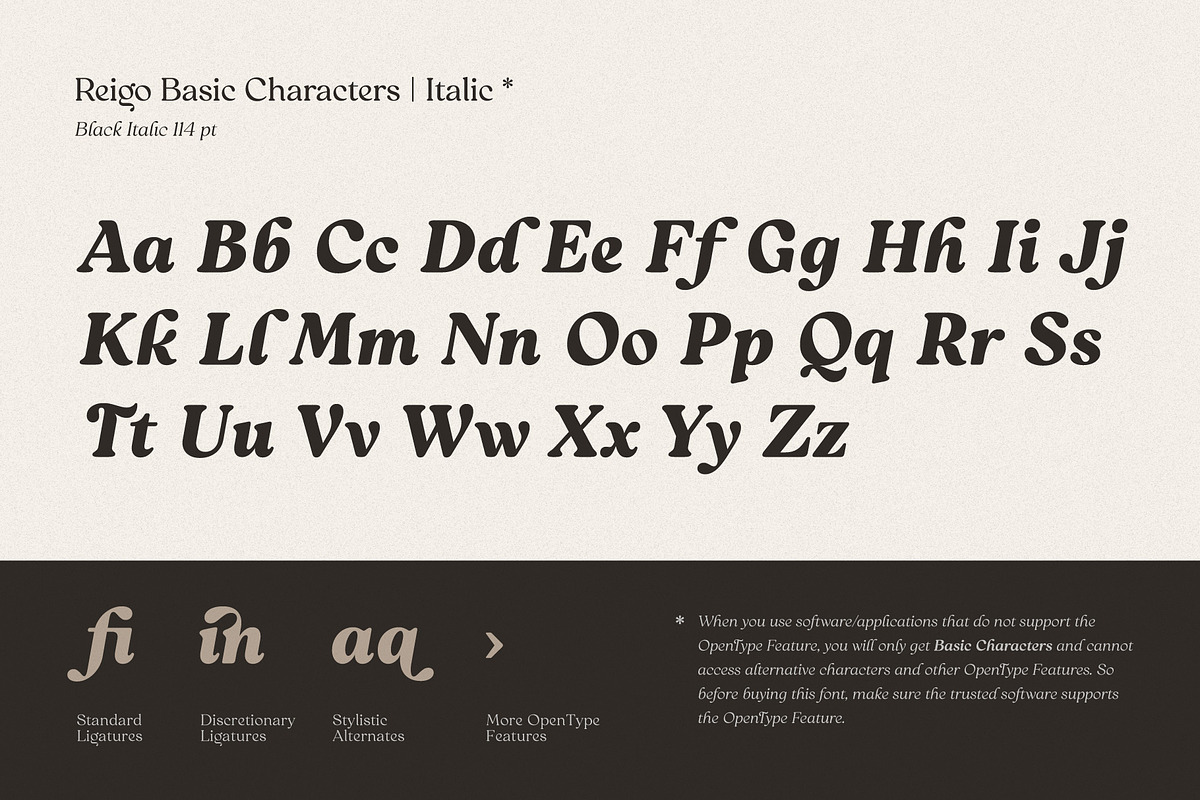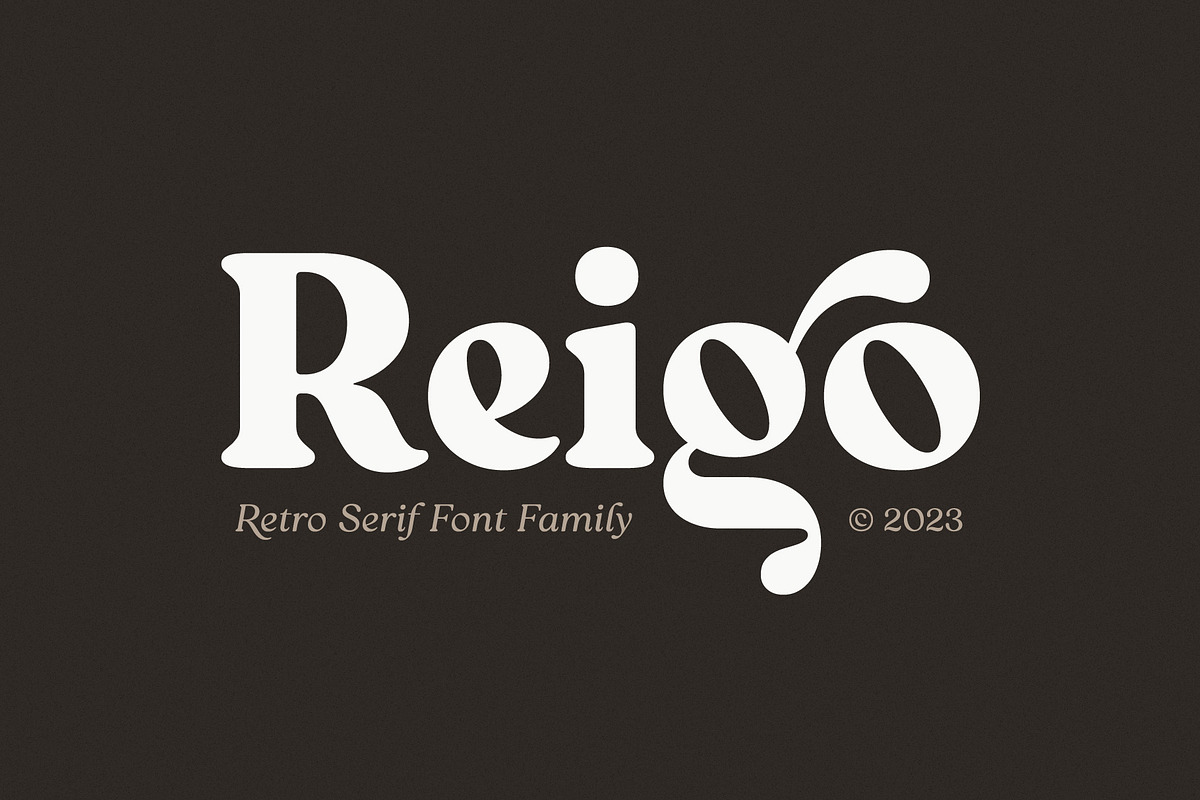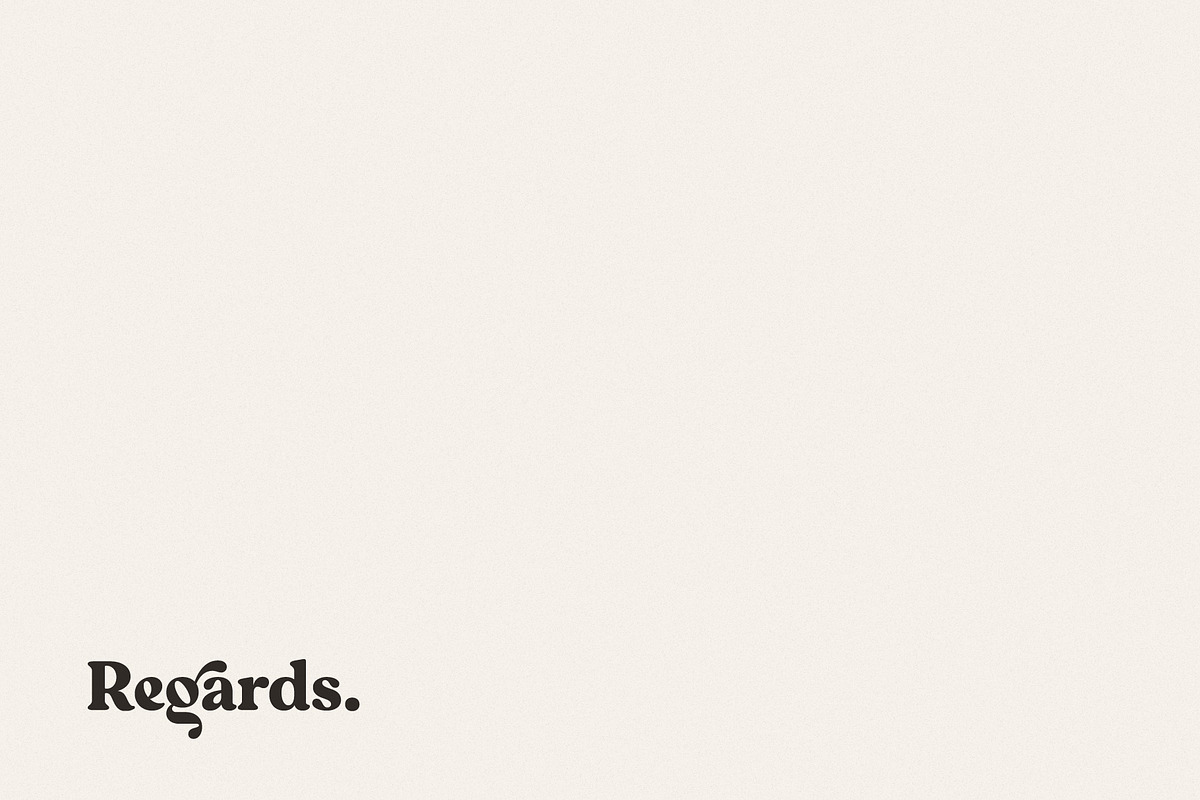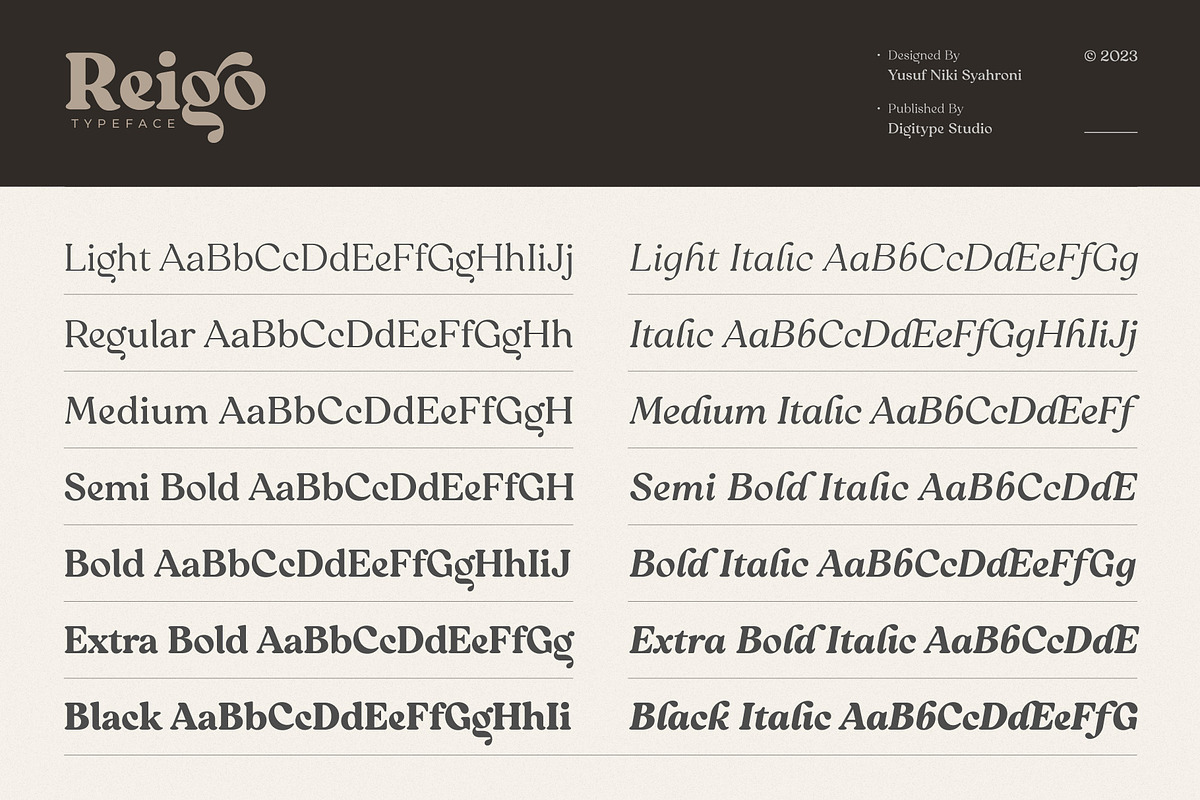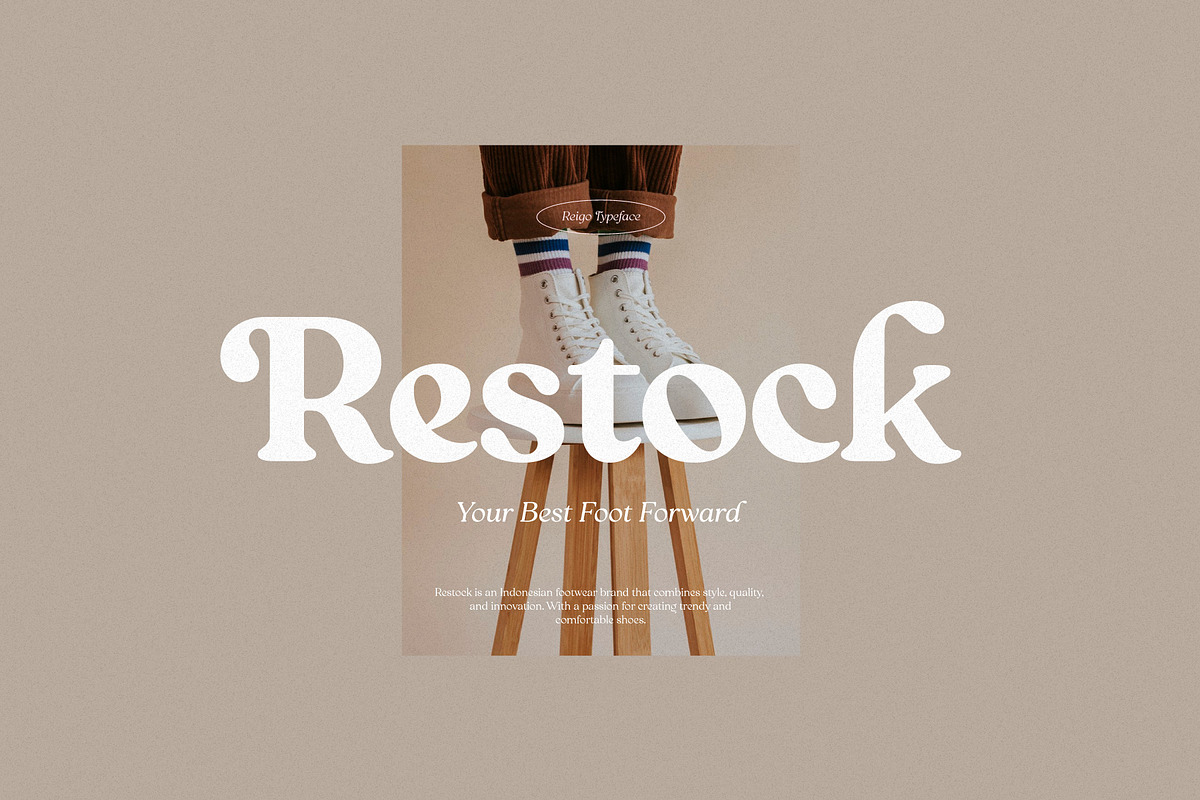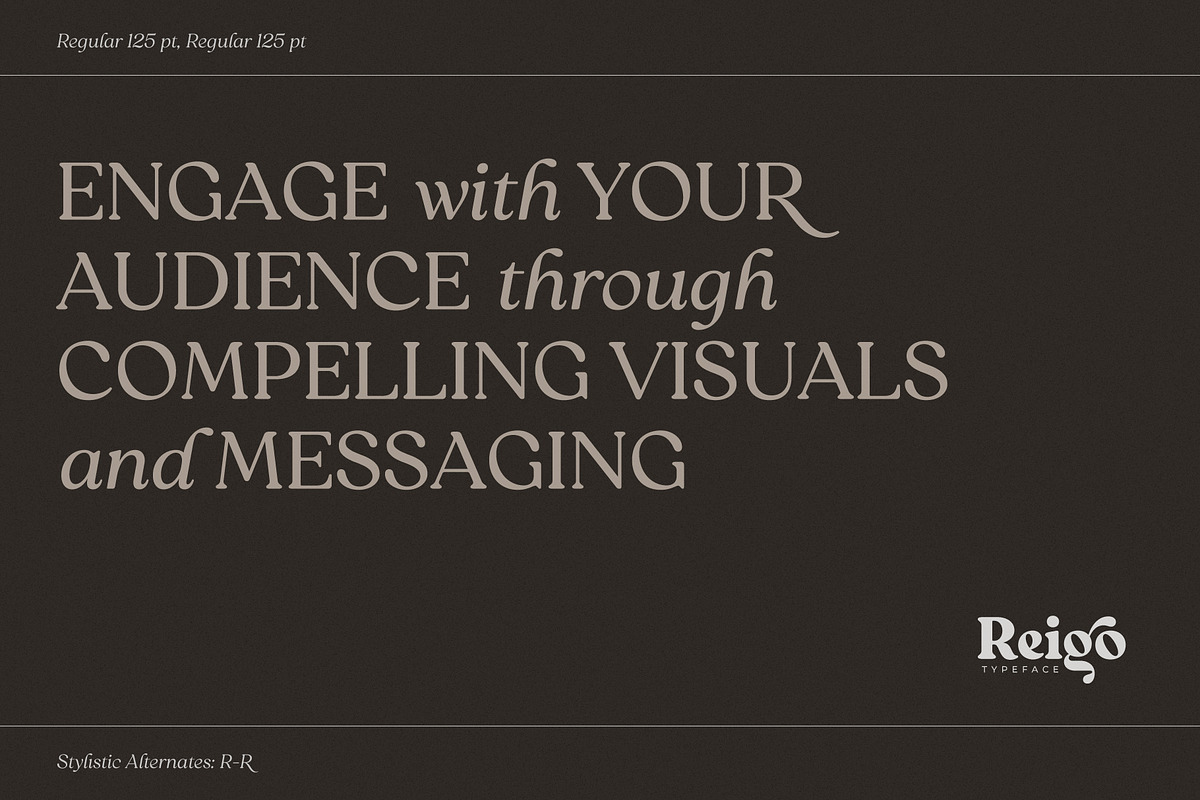
Reigo Complete Family
Reigo is a serif font with gentle curves giving it a soft, warm, classy, organic. Reigo comes with 7 Uprights & 7 Matching italics with OpenType features such as Ligatures, Discretionary Ligatures, Stylistic Alternates, and More OpenType Features and is equipped with PUA encoded.
With a large selection of advanced & classic styles, we hope to give users flexibility and creativity in terms of style and appearance of text and help realize effective and engaging communications.